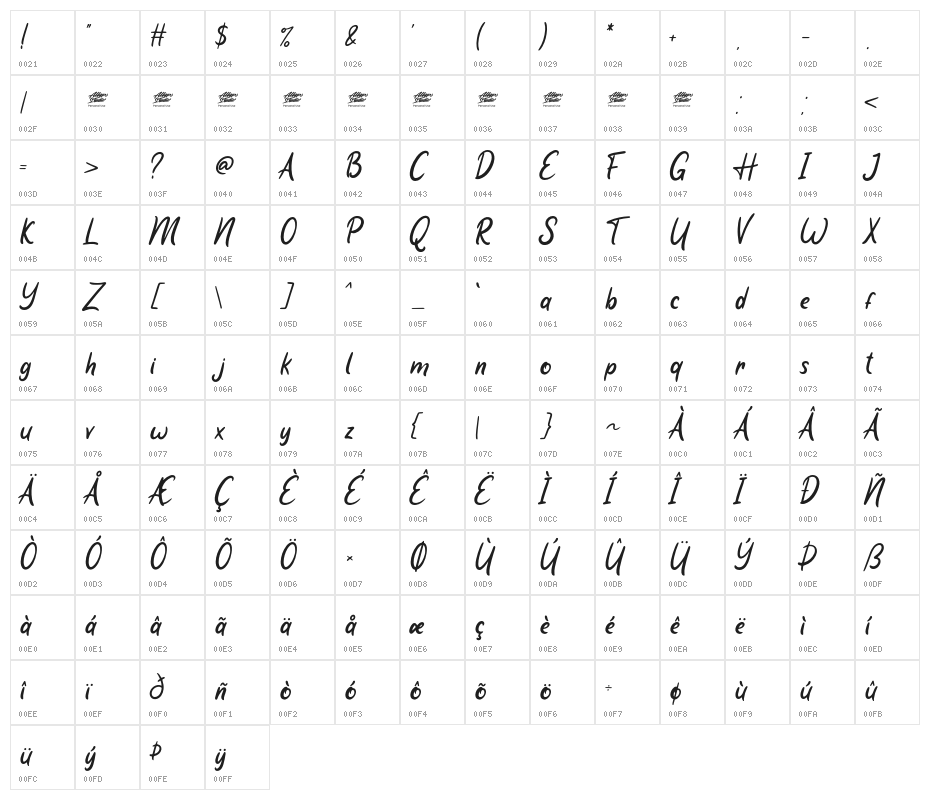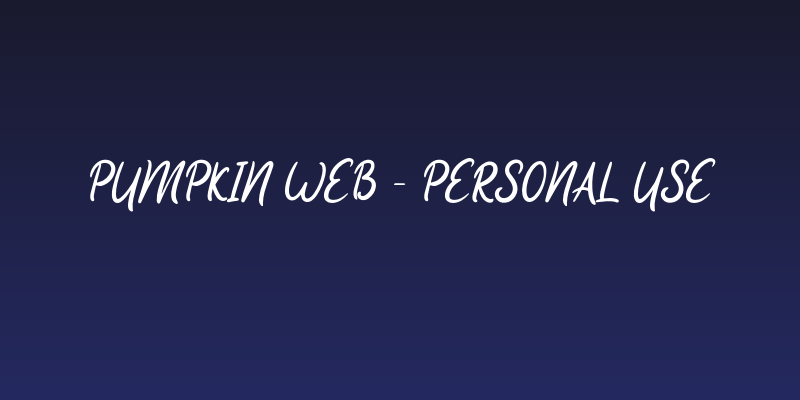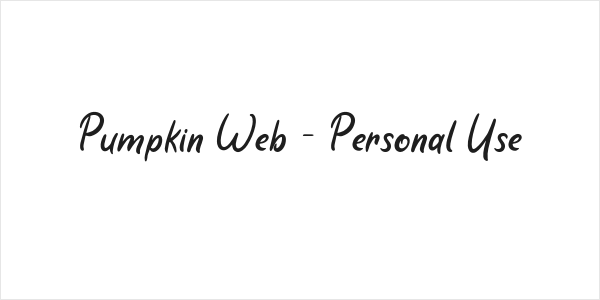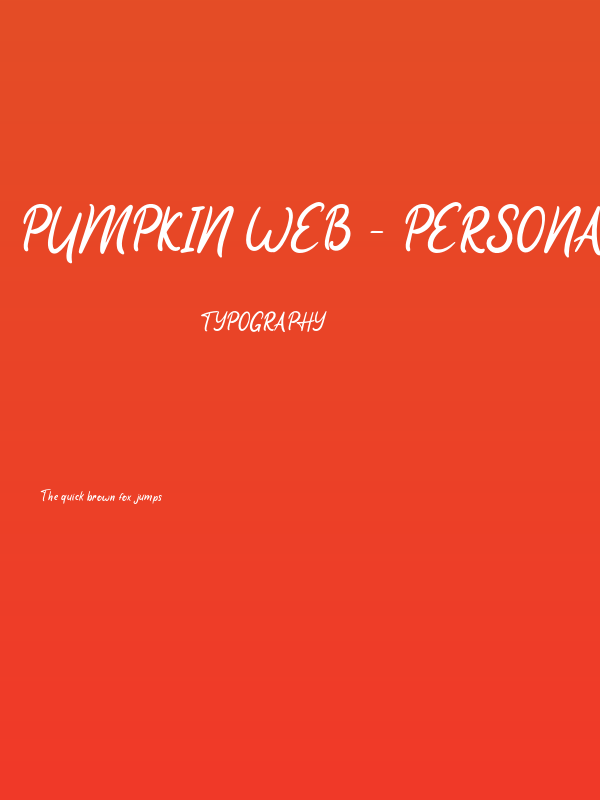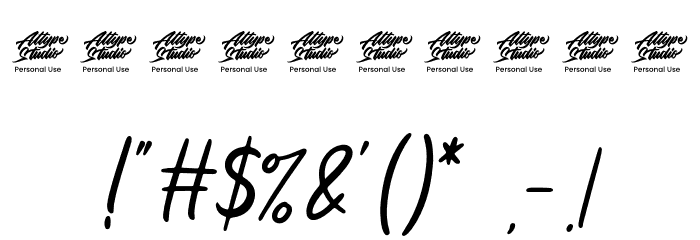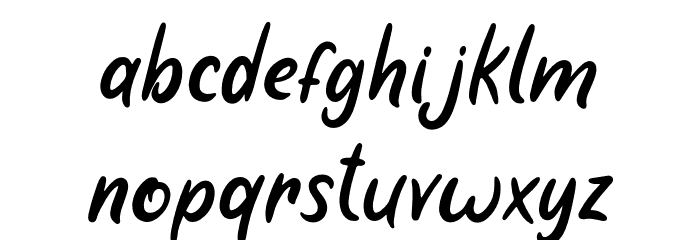
Pumpkin Web - Personal Use Font
Pumpkin Web - Personal Use Description
This font features a lively and dynamic script style, characterized by its fluid and cursive letterforms. The uppercase letters are bold and slightly slanted, giving a sense of movement and energy. The lowercase letters maintain a consistent flow, with smooth connections between characters, enhancing its handwritten appeal. The font includes a full set of numerals and a variety of punctuation marks, all designed with the same energetic flair. Its playful yet elegant style makes it suitable for creative and informal designs, adding a personal touch to any project.
| Proposed Projects | Ideal for invitations, greeting cards, logos, and branding projects that require a personal and energetic touch. |